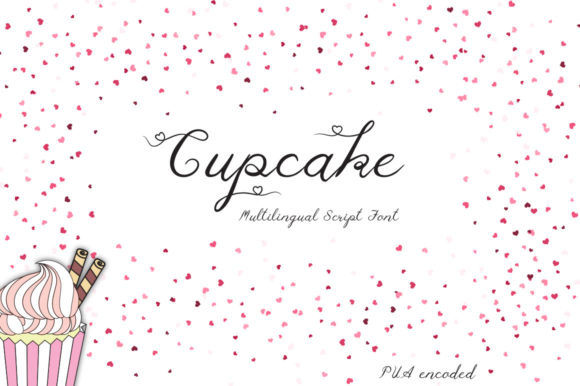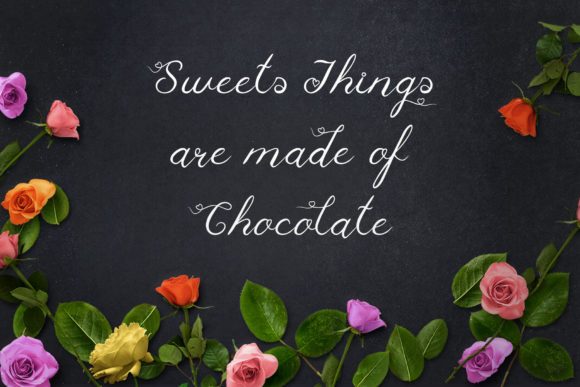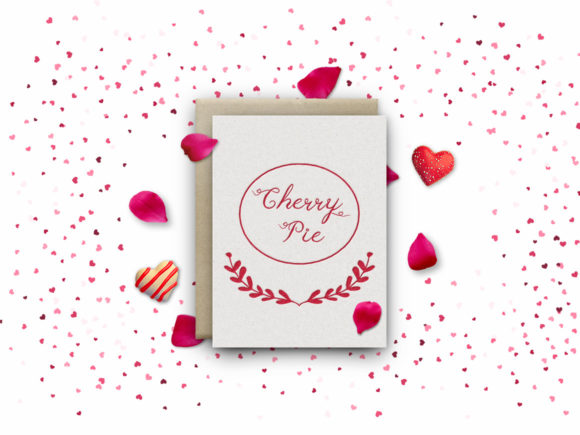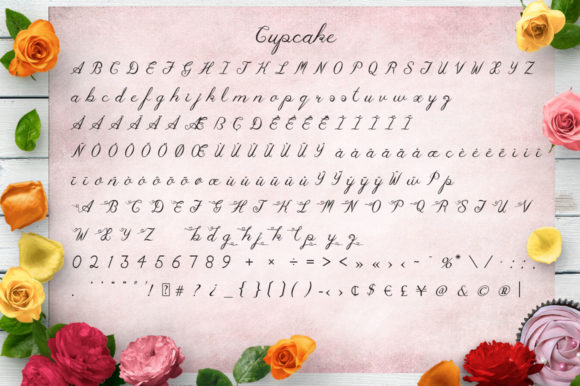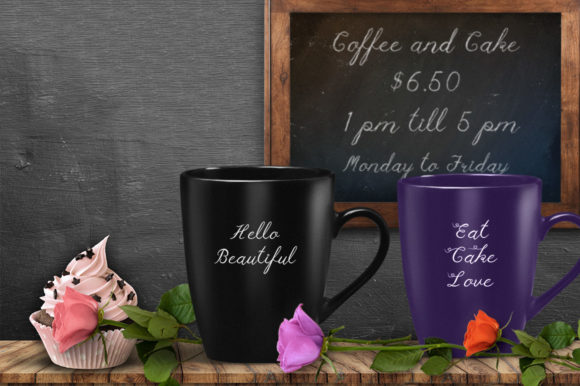
Cupcake Font
About Cupcake Font
Sweet, simple delicious: Cupcake is a stunning handwritten font with bold swashes. Use it to add a romantic twist to any design project.